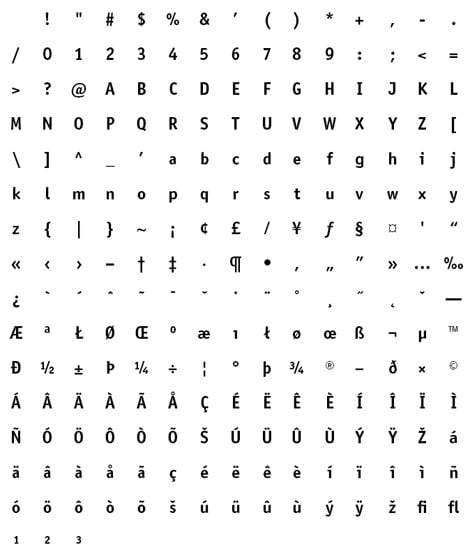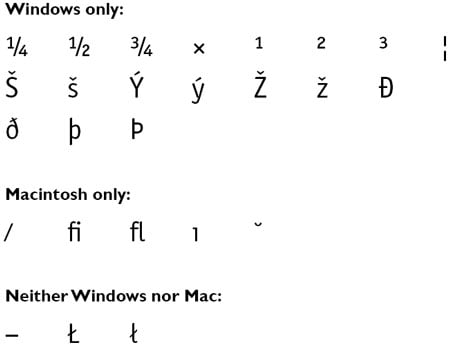
A Question of Character: Finding What You Need in Your Fonts, Part 1
As fonts get larger, finding the characters you need keeps getting more complicated. Here's a chart that gives keyboard shortcuts for the degree symbol, multiplication sign, the cents sign, and much more.
When I asked a few columns back about your interest in Unicode, a lot of hands shot up. But just as many of you said you wanted to know how to get at characters that have been hiding in your fonts since long before Unicode was dreamt up. Unicode may be the key to understanding and using fonts with very large character sets, but on a daily basis most of us use smaller -- and often much older -- fonts that present mysteries of their own.
So think of this column as “Font Exploration 101.” It will focus on excavating characters from your everyday fonts. Part 2 will delve into Unicode as well as system and application tools for exploring larger fonts, including Windows Character Map and Mac OS’s Character Palette.
The Rosetta Stone
www.adobe.com/type/pdfs/AdobeWestern2.pdf. It lists all the characters in the Adobe Western 2 character set, which Adobe now uses for as a basis for all of its so-called “Standard” fonts. (I'll explain the Adobe Western 2 character set and Standard fonts in a bit.)
More importantly, this PDF lists the keyboard commands or other techniques that you can use to access all 228 characters in PostScript Type 1 fonts, as well as in all other newer fonts that contain the same characters. The degree symbol, multiplication sign, the cents sign, they’re all here, and much, much more.
Keep this document at your fingertips.
How We Got Here
Now you have the keyboard shortcuts, but you probably still don't understand font format history.
When Adobe introduced PostScript in the 1980s, it created a font format to go with it, which we now call PostScript Type 1. Tens of millions of Type 1 fonts are still in circulation.
Except for fonts containing only symbols or all capitals, nearly all Type 1 fonts have a standard character set. That is, they all contain the same letters, numbers, punctuation marks, and symbols. This character set is still at the heart of almost every font you use, regardless of format.
In these fonts, each character is identified by a number from 0 to 255, because all computer systems identify characters by number, and 256 is the most numbers you can specify with a single byte of computer data. Consequently, these fonts are sometimes referred to as single-byte fonts.
In fact, these fonts contain only 228 printable characters (including the word space), with the other "slots" in the font occupied by program commands, such as Return.
These 228 characters, which comprise the standard Type 1 character set, are still included in nearly every text font.
Apple and Microsoft adopted competing strategies for using Type 1 fonts. For example, neither company's operating system allowed access to all of the 228 characters -- each OS used a different subset. Some characters were only accessible in Windows, others only on the Mac, and yet others were unavailable to both, as shown here:
In addition, the Mac OS created the illusion that certain Greek and math characters were a part of each font, when in fact they were being "borrowed" from the Symbol font when the appropriate keystrokes were typed. You may have noticed that these characters didn’t match the style of the typeface you were using, unless that happened to be Helvetica or Times Roman. Here are those refugees from Symbol:
On both systems, characters with ID numbers in the range from 0 through 127 were typed directly as printed on the keyboard, with or without the Shift key. To type higher-numbered characters, the Mac added the Option key to the mix (e.g., Shift-Option-d). The keystrokes required to access these “high-bit” characters are revealed in the Mac Keyboard Viewer utility. Windows’s technique was to hold down the Alt key while typing the character's ID number using the numeric keypad.
For the most part, these methods for character access continue to work -- or not work, in the case of the characters just cited -- even though Windows and the Mac OS have evolved away from their old ways of dealing with fonts. Most significantly, both now rely on Unicode, a new standardized (yay!) numbering system, for identifying characters within fonts and within documents. For example, when using Macs running OS X, Unicode-savvy programs will not render the “borrowed” characters correctly when you’re using Type 1 fonts. This is probably not a big deal for most of you. If you do need these characters, you can either get them directly from the Symbol font itself or buy OpenType versions of your old Type 1 fonts.
Klingon notwithstanding, Unicode does, however, encompass many extinct languages and writing systems used by academics and historians.